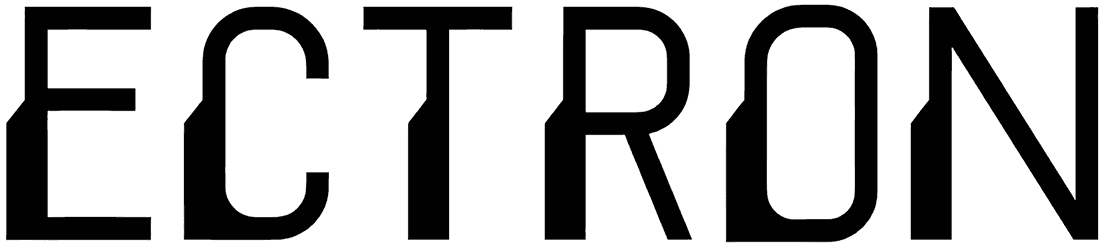
Ectron Font
Put simply, there’s nothing better than techno fonts that are crowd-pleasers for many potential audiences in designing modern graphics or digital displays like websites, logos, games, user interference, and more.
Its geometric angular face comes to attract maximum attention in a futuristic arrangement and plays up your fiction typography as well. Don’t dwell on numbers lacking, Ectron can pull out all stops to accentuate your artwork through its dingbat effects.